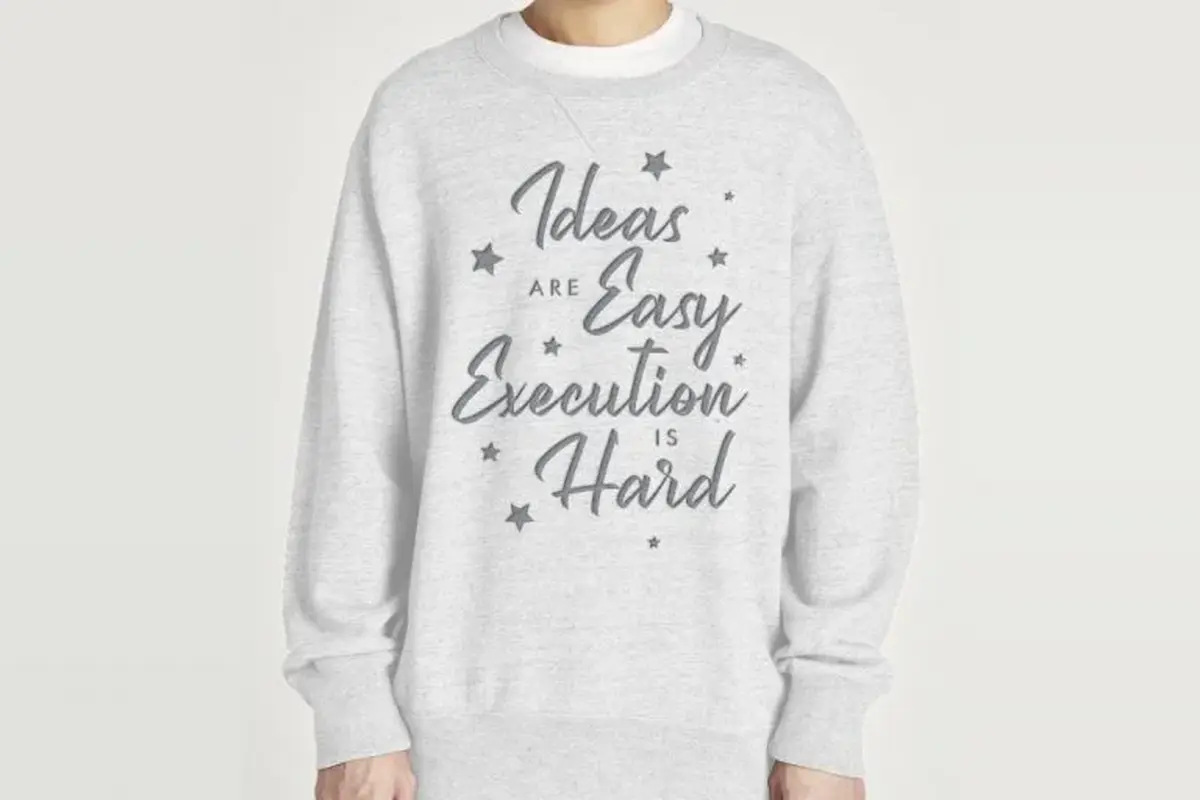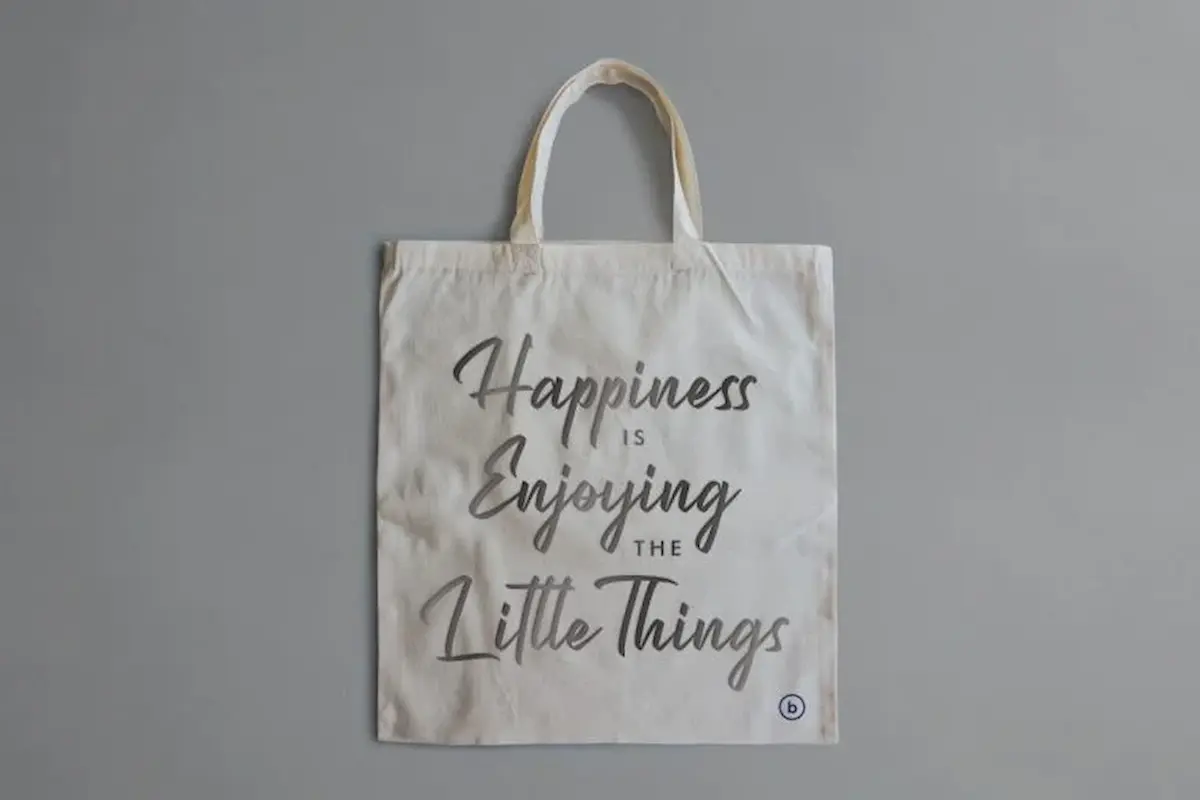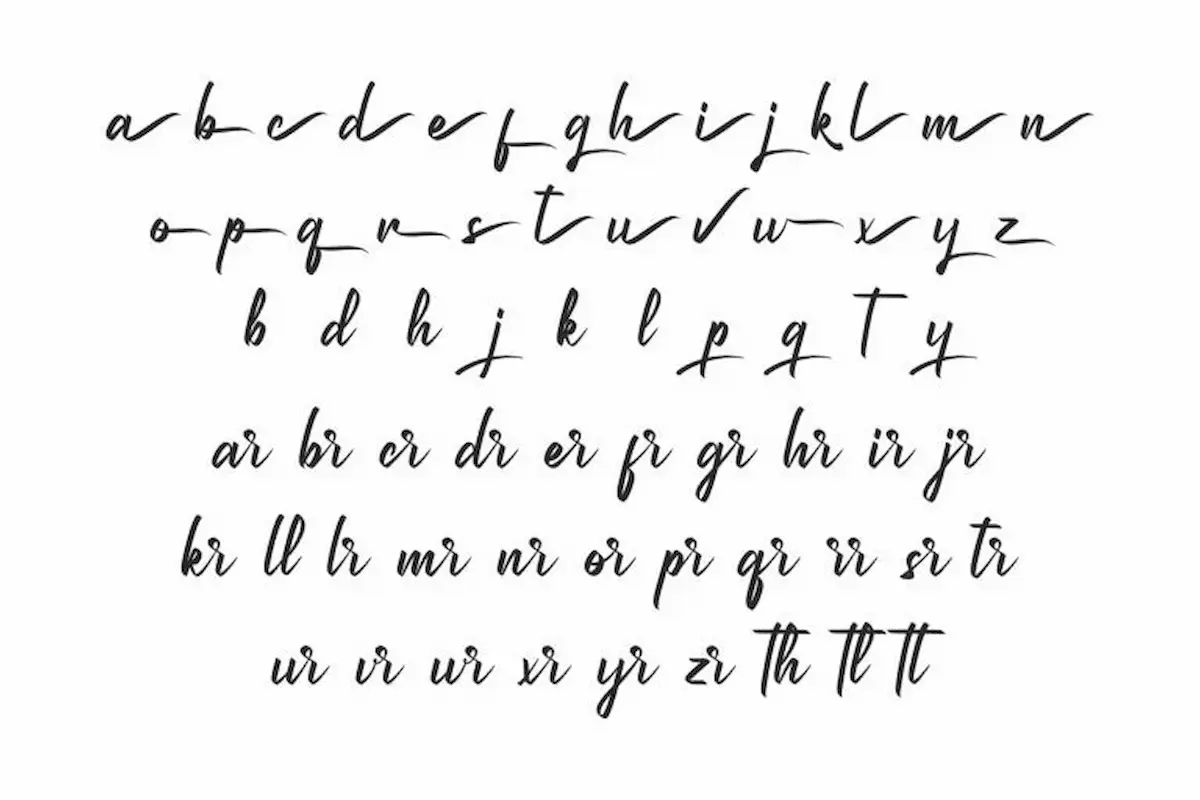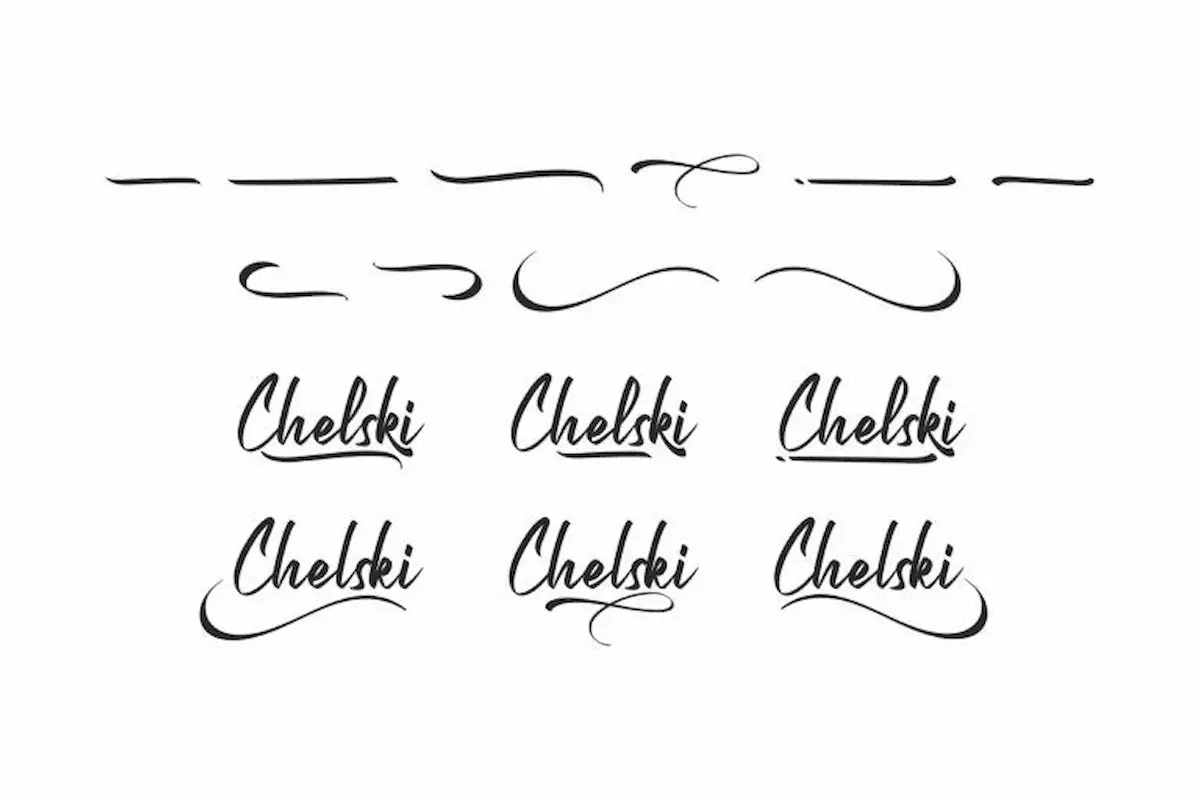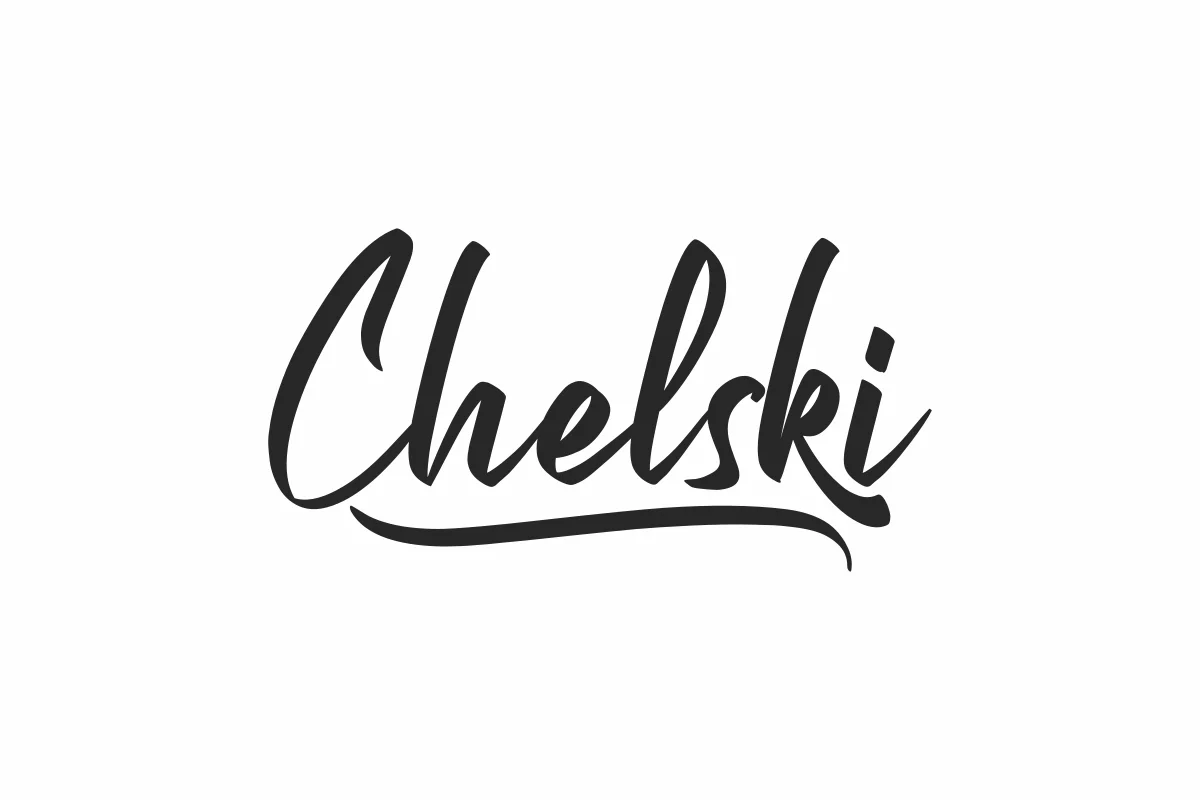
Chelski Font is an handwritting calligraphy font by NihStudio. Try the font by typing your own text below. Please note that the test font below is a demo file, so some specimens/ characters will not show up.
Chelski is a handmade brush calligraphy script font. The Font Designers of Chelski are : Widi and Sarah. On the package you will get :
Chelski font will be awesome for many projects (some require extended license) including : branding, logo, stationery, business card, signage, flyer, brochure etc. The theme style of the font is elegant, luxury, glamour, gold, vintage, stylish, sophisticated and classic brush style. The font will be match for this typeface: wedding, events, real estate, architect, law firm, florist, gardening, makeup artist, travel, hotel, musician etc